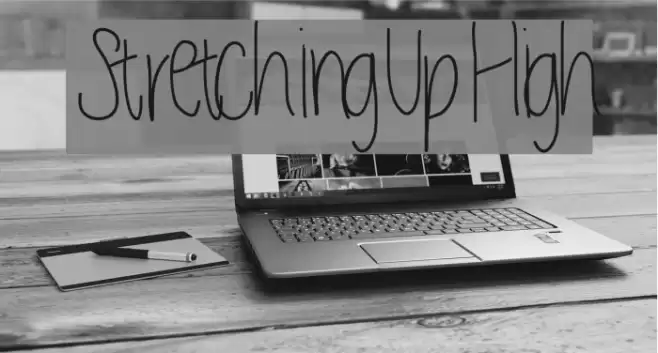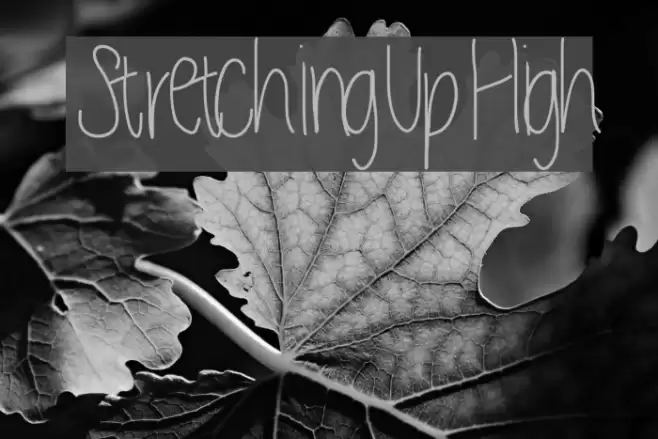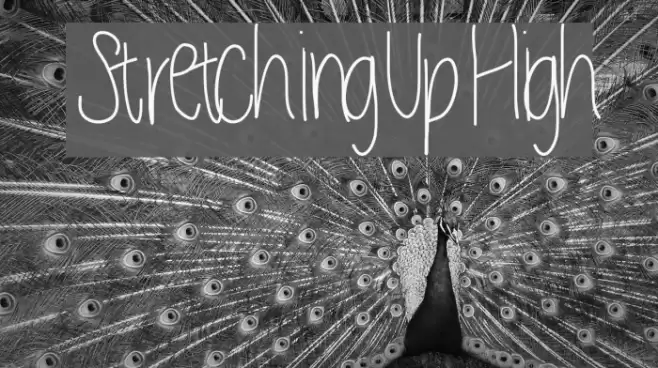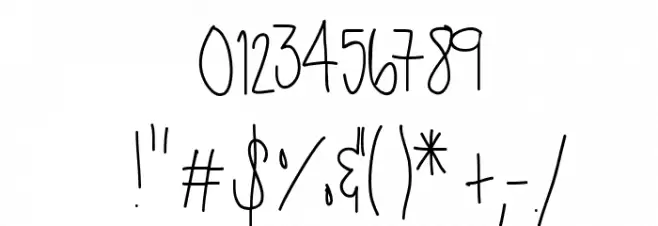
StretchingUpHigh Font
StretchingUpHigh Description
This font features a tall and slender design with a playful, handwritten style. The characters are elongated, giving a sense of height and elegance. The strokes are consistent in thickness, contributing to a clean and cohesive appearance. The overall look is casual yet sophisticated, making it suitable for projects that require a personal touch. The font includes both uppercase and lowercase letters, numbers, and a variety of special characters, ensuring versatility in use.
A tall, slender handwritten font with a playful and elegant style from Uncategorized fonts.
- Proposed Projects: Ideal for greeting cards, invitations, personal branding, and creative projects that require a whimsical touch.
- Overall Style: Casual
- Use Case: Headlines, Logos, Invitations